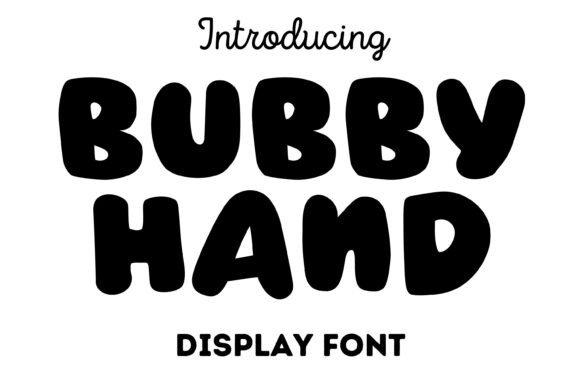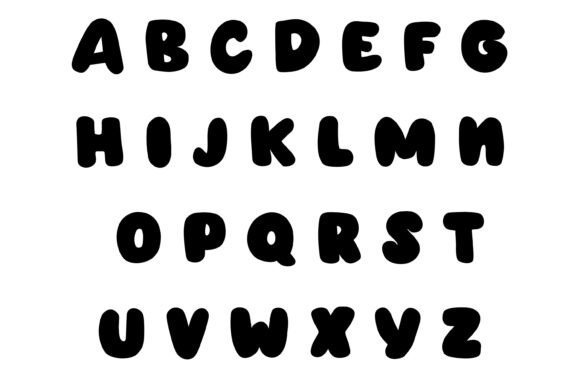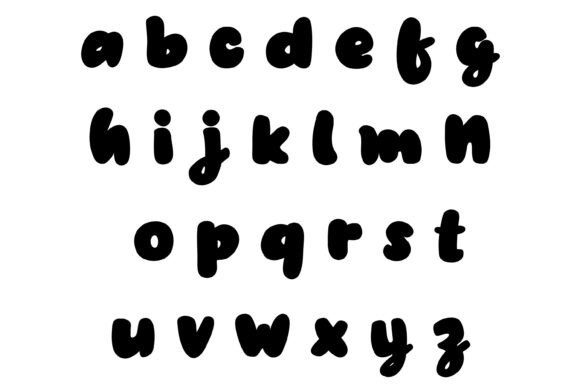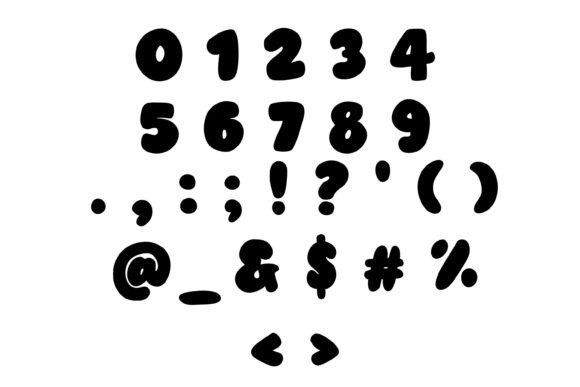
Bubby Hand Font
About the Bubby Hand Font
Experience the unique personality of Bubby Hand Font, a font designed for impact. Introducing Bubby Hand – a playful and bold display font with a bubbly charm! Perfect for kid-friendly designs, classroom printables, custom t-shirts, mugs, party decor, and more. This font brings a fun, chunky vibe to your creations and works seamlessly in Canva, Cricut, and sublimation projects. 🧡✨
Bold bubble-style font that adds a soft, friendly personality. Ideal for sublimation on t-shirts, mugs, tote bags, stickers, and posters
Add fun and creativity to your projects with this versatile, cute, and bold bubble font!
Bubby Hand Font Usage Examples
Bubby Hand Font Example